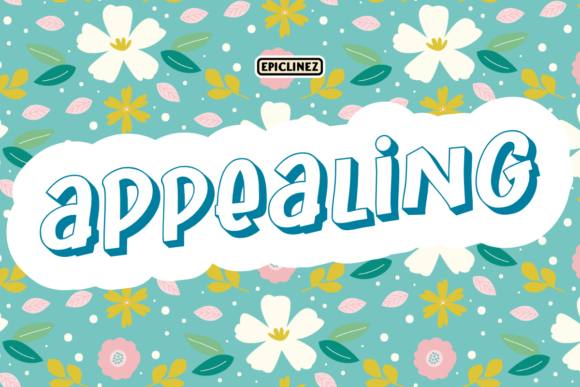
The Power of Appealing: Unlocking Creativity with a Cute and Playful Display Font
I’ll never forget the moment I stumbled upon the perfect font for a whimsical craft project I was working on. I had been searching for what felt like hours, trying out font after font, but none seemed to capture the playful, carefree spirit I was going for. That was until I discovered Appealing, a delightful display font that instantly brought my design to life. In this article, I’ll share my experience with Appealing, and explore how you can harness its childlike playfulness to elevate your own creative projects.
An Honest Review of Appealing
So, what makes Appealing so special? Let’s dive into the good stuff! 😊
- ✨ Cute and playful: Appealing’s got a certain je ne sais quoi that instantly adds a touch of whimsy to any design.
- ✅ Highly versatile: Whether you’re working on a craft project, a branding campaign, or a social media graphic, Appealing adapts effortlessly to different contexts.
- 💫 Excellent for headlines and titles: This font truly shines when used for display purposes, adding a pop of personality to your text.
Of course, no font is perfect, and Appealing has a few minor quirks to be aware of:
- 🤔 Limited use for body text: While Appealing is stunning for headlines, it’s not the most readable font for longer blocks of text.
- ⚠️ Some glyphs may require manual adjustment: Depending on your design, you might need to tweak certain glyphs to get the best results.
The Story Behind Appealing
While the origins of Appealing are shrouded in mystery, it’s clear that this font was designed with creativity and playfulness in mind. Imagine a designer, fueled by a passion for childhood nostalgia and a love of whimsical typography, crafting a font that’s equal parts fun and sophisticated. That’s Appealing in a nutshell!
| What makes Appealing so special? | Appealing’s unique blend of playfulness and sophistication makes it perfect for adding a touch of whimsy to any design. |
| Is Appealing suitable for body text? | While Appealing is stunning for headlines, it’s not the most readable font for longer blocks of text. |